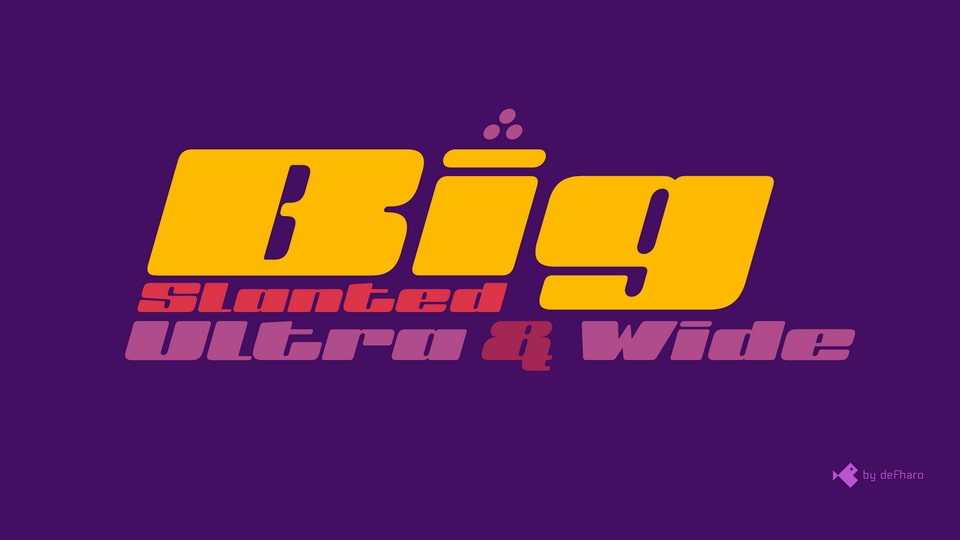
Download BIG Slant font, a display typeface with a decisive 16° slant, brings speed, contemporaneity, and an unmistakable look—as its name suggests, enormous, because with just three letters.